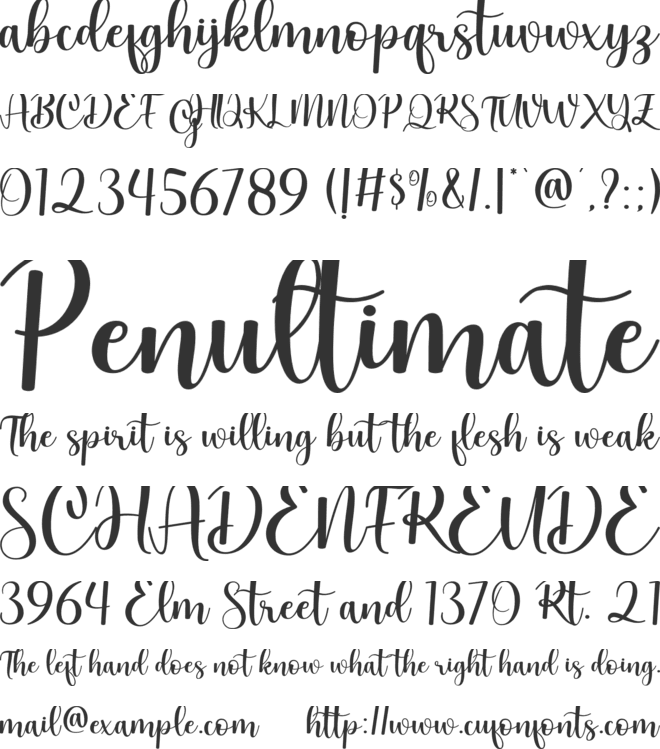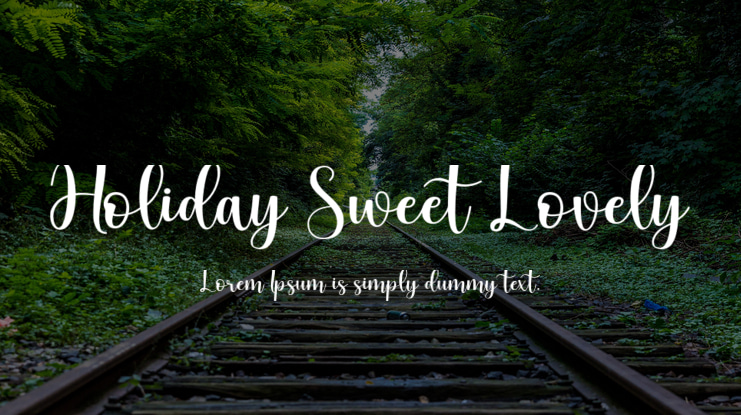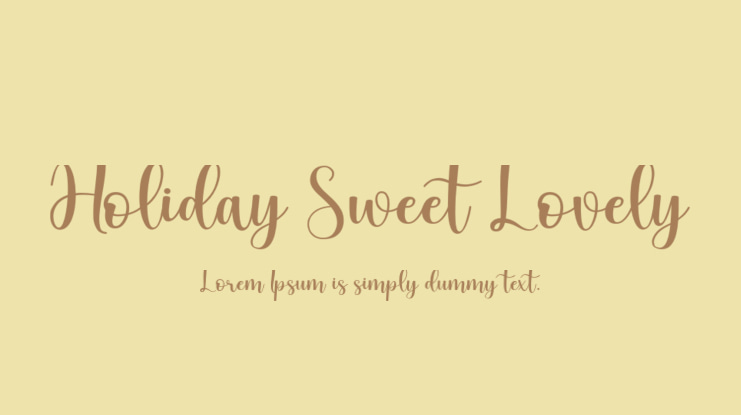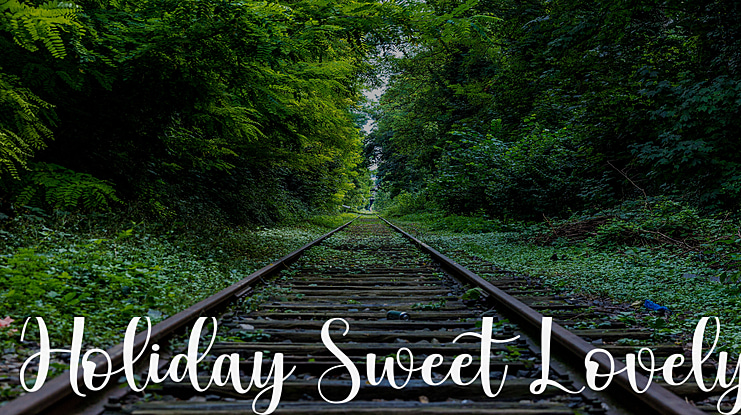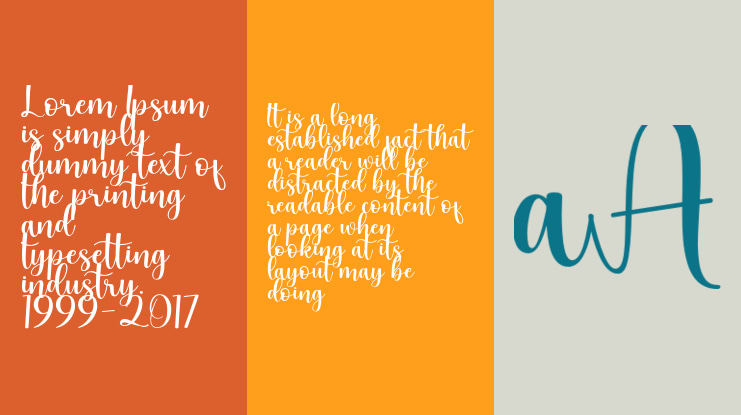
Holiday Sweet Lovely Font
Holiday Sweet Lovely is a spectacular duo font, defined by characters that dance along the baseline. Incredibly versatile, this font fits a wide pool of designs, elevating them to the highest levels. It looks amazing on thank you cards, quotes, wedding invitations, greeting cards, business cards, logos and any other design that requires a handwritten touch.This font is PUA encoded which means you can access all of the glyphs and swashes with ease!